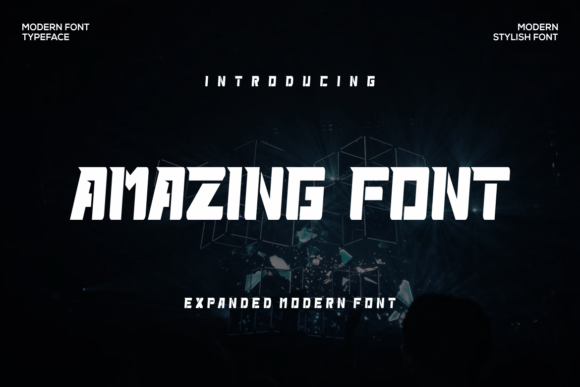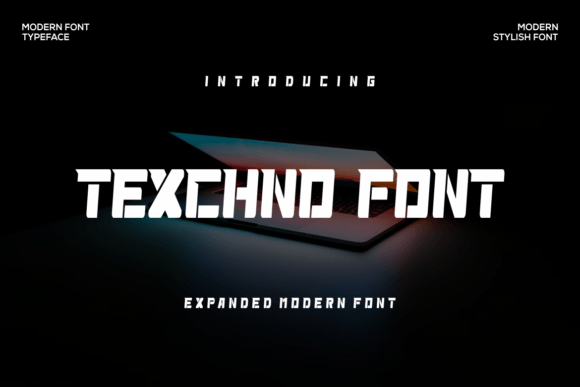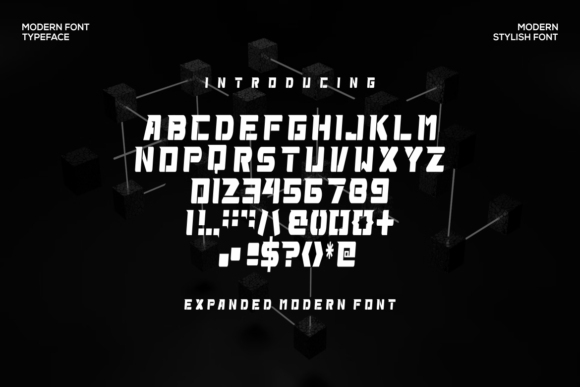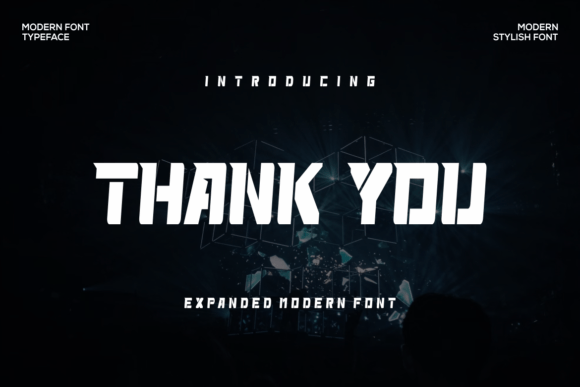
Introduction to Japrit Font
Imagine you’re working on a creative project, and you finally find the perfect font to elevate your design. The words flow effortlessly, and your vision starts to take shape. This is what happens when you have the right design resource – like the Japrit Font – at your fingertips.
As a designer, you understand the importance of a high-quality font that can make or break a project. That’s why we’re excited to introduce the Japrit Font, a bold and authentic display font perfect for branding, logos, t-shirt printing, and more. With its transparent background and free download option, you can experiment with different designs without any restrictions.
What sets the Japrit Font apart is its versatility in various contexts. Whether you’re working on a creative project or need a font for commercial use, this font is an excellent addition to your design arsenal. Get ready to unleash your creativity with the Japrit Font and take your designs to the next level.
Key Features of Japrit Font
- Unique Sans-Serif Design: Japrit Font offers a clean and modern sans-serif design ideal for creative projects.
- High-Quality Typography: The font features smooth lines and precise details, making it a valuable design resource.
- Perfect for Creative Projects: Japrit Font is an excellent choice for designers working on creative projects, such as logos, branding materials, and advertising campaigns.
Honest Review: Japrit Font
I recently came across the Japrit Font while searching for a unique design resource for my creative project. I must say, I was impressed with its overall quality and aesthetic appeal. The Japrit Font is available for free download, which is a huge plus for designers on a budget.
Here are some things that work well about the Japrit Font:
- ✨ Unique and stylish design: The Japrit Font has a distinctive look that sets it apart from other fonts in its category.
- ✨ High quality: The font is well-designed and looks great on various devices, including those with transparent backgrounds.
- ✨ Versatile: The Japrit Font can be used for a wide range of creative projects, from digital art to print materials.
- ⚠️ Limited character set: The Japrit Font only includes a limited number of characters, which may not be suitable for complex or technical projects.
- ⚠️ Not suitable for all devices: While the font looks great on most devices, it may not render correctly on older or less capable systems.
Overall, I’m impressed with the Japrit Font and would definitely recommend it to designers looking for a unique and high-quality design resource. Just be aware of its limitations and use it accordingly.
Tips for Getting the Most Out of Japrit Font
To get the most out of the Japrit Font, use it in conjunction with other design resources, such as images and graphics. You can also experiment with different font sizes, styles, and colors to create a unique look. Additionally, use the Japrit Font with a transparent background to add depth and interest to your design.